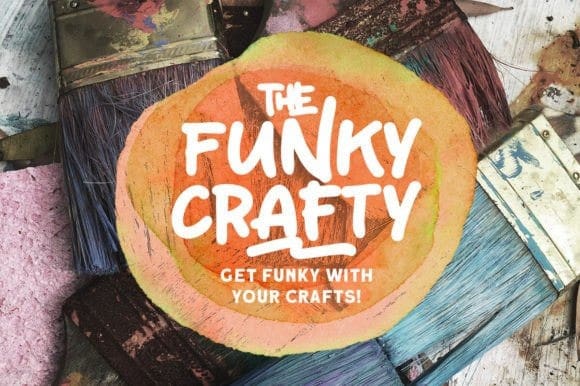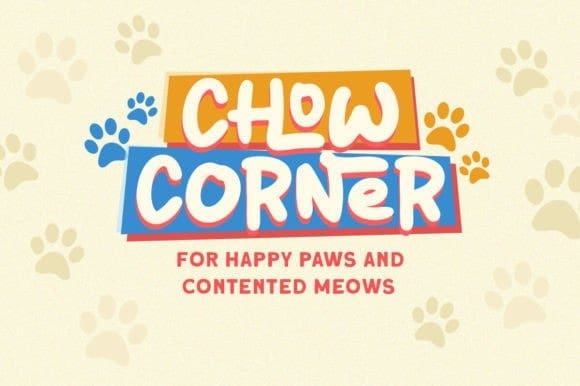
Scribble Wonders Font
Scribble Wonders Font is a cute marker font with hand drawn feel. The strokes make this font outstanding and looks great for title. This type of font perfectly made to be applied especially in logo, headline, signage and the other various formal forms such as invitations, labels, logos, magazines, books, greeting / wedding cards, packaging, fashion, make up, stationery, novels, labels or any type of advertising purpose.